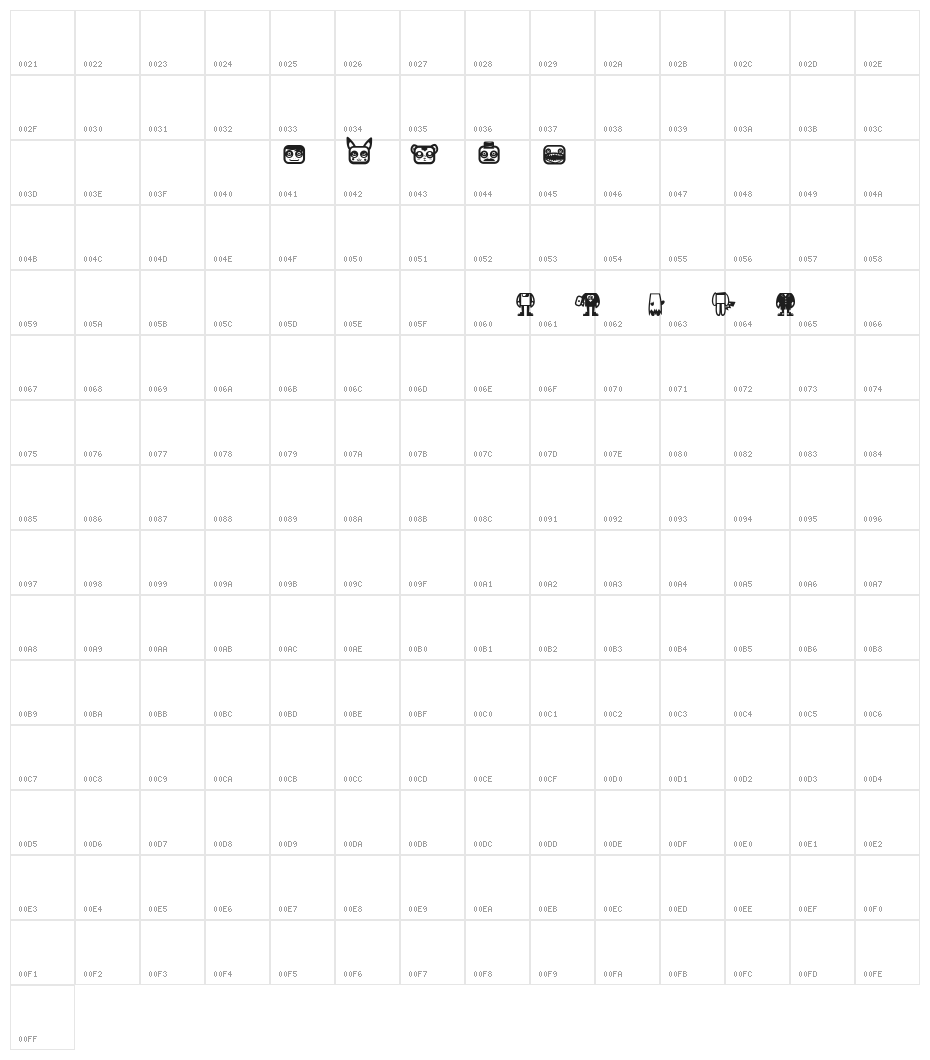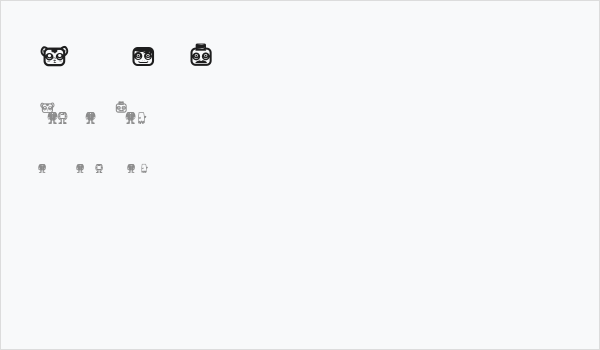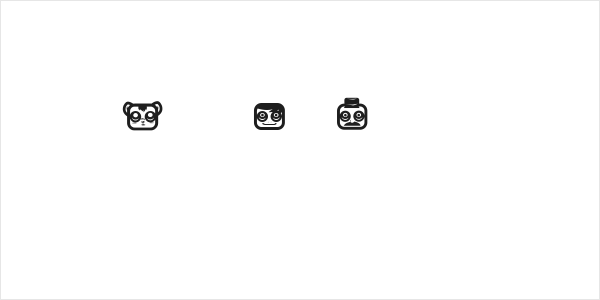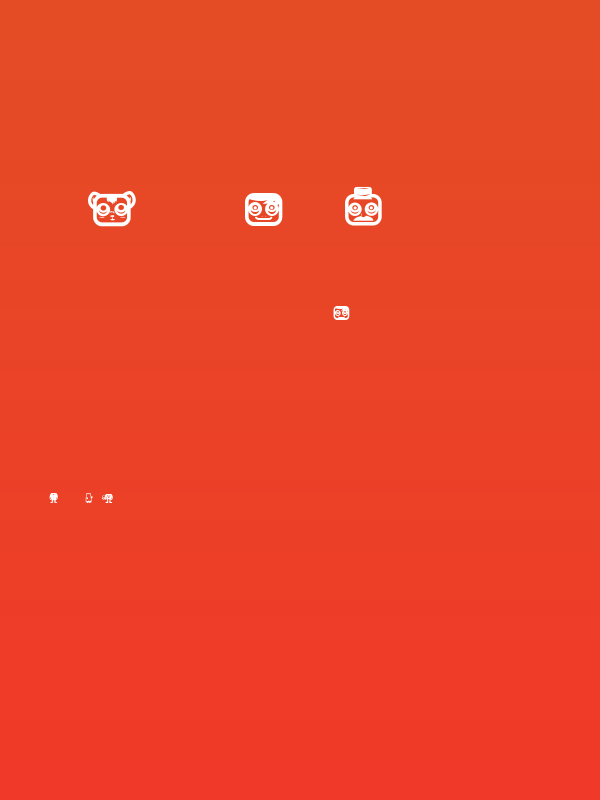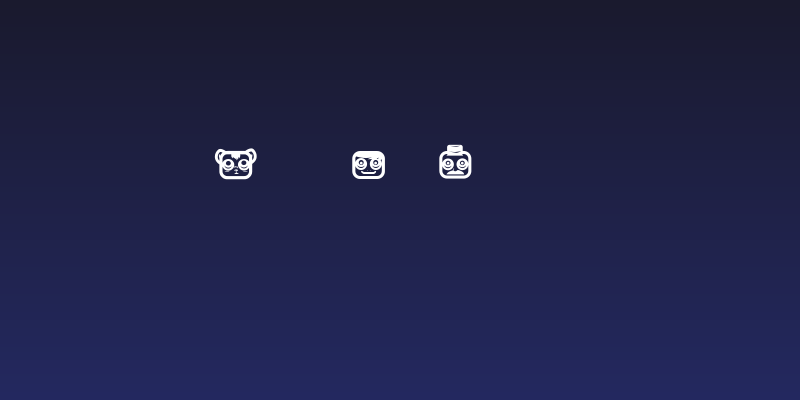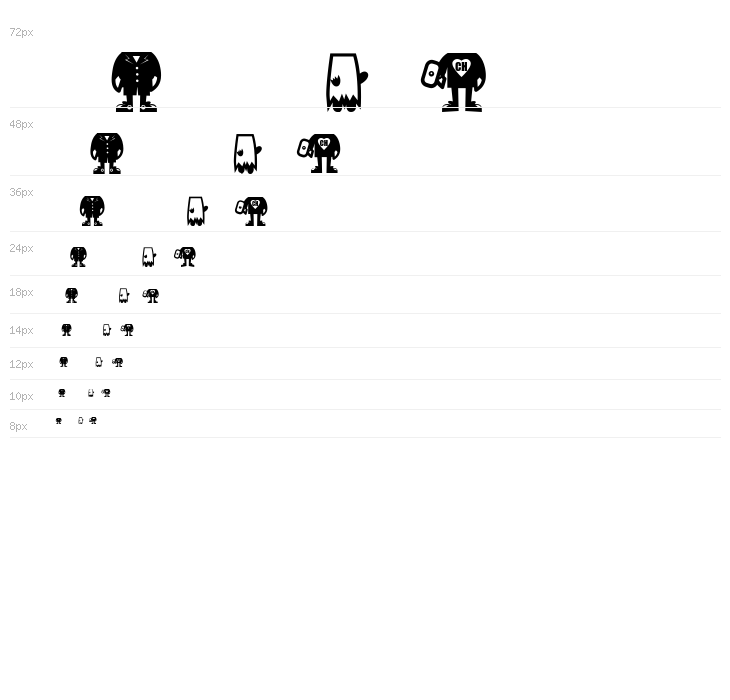
COMANDO X Font
COMANDO X Description
This is a highly creative and playful font that incorporates character illustrations into each letterform. Each character is uniquely designed, featuring whimsical and cartoonish elements that make the font stand out. The characters are bold and filled with intricate details, such as facial expressions and accessories, which add a layer of personality to the text. The font is primarily decorative, with each letter taking on a distinct character shape, making it ideal for projects that require a fun and engaging visual element. The overall design is cohesive, with a consistent style that ties all the characters together, making it suitable for themed events or branding that seeks to convey a sense of humor and creativity.
| Proposed Projects | Ideal for children's books, playful branding, themed events, and creative posters. |